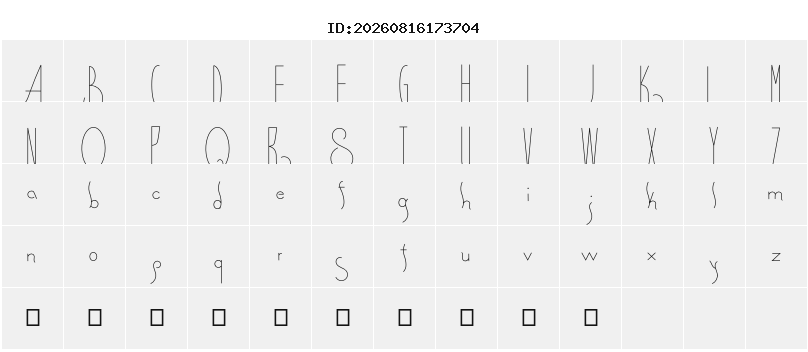
Spirituality Preview
• Font Name: Spirituality
• Font ID: FontForge 2.0 : Spirituality : 30-3-2015
• Full Font Name: Spirituality
• PostScript Name: Spirituality
• Character Count: 72
About Spirituality.otf
Spirituality.otf is a modern, elegant sans-serif font designed for ultimate readability and visual harmony. Perfect for branding, headlines, web design, and print materials.